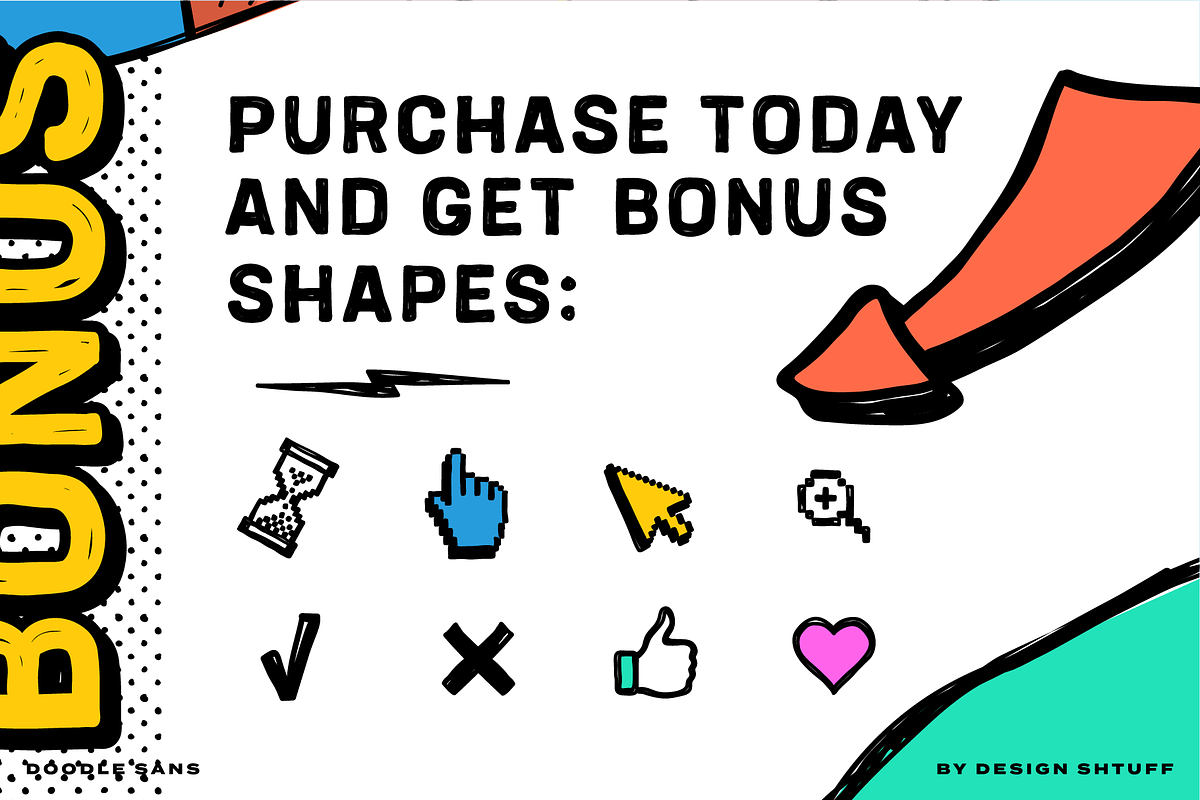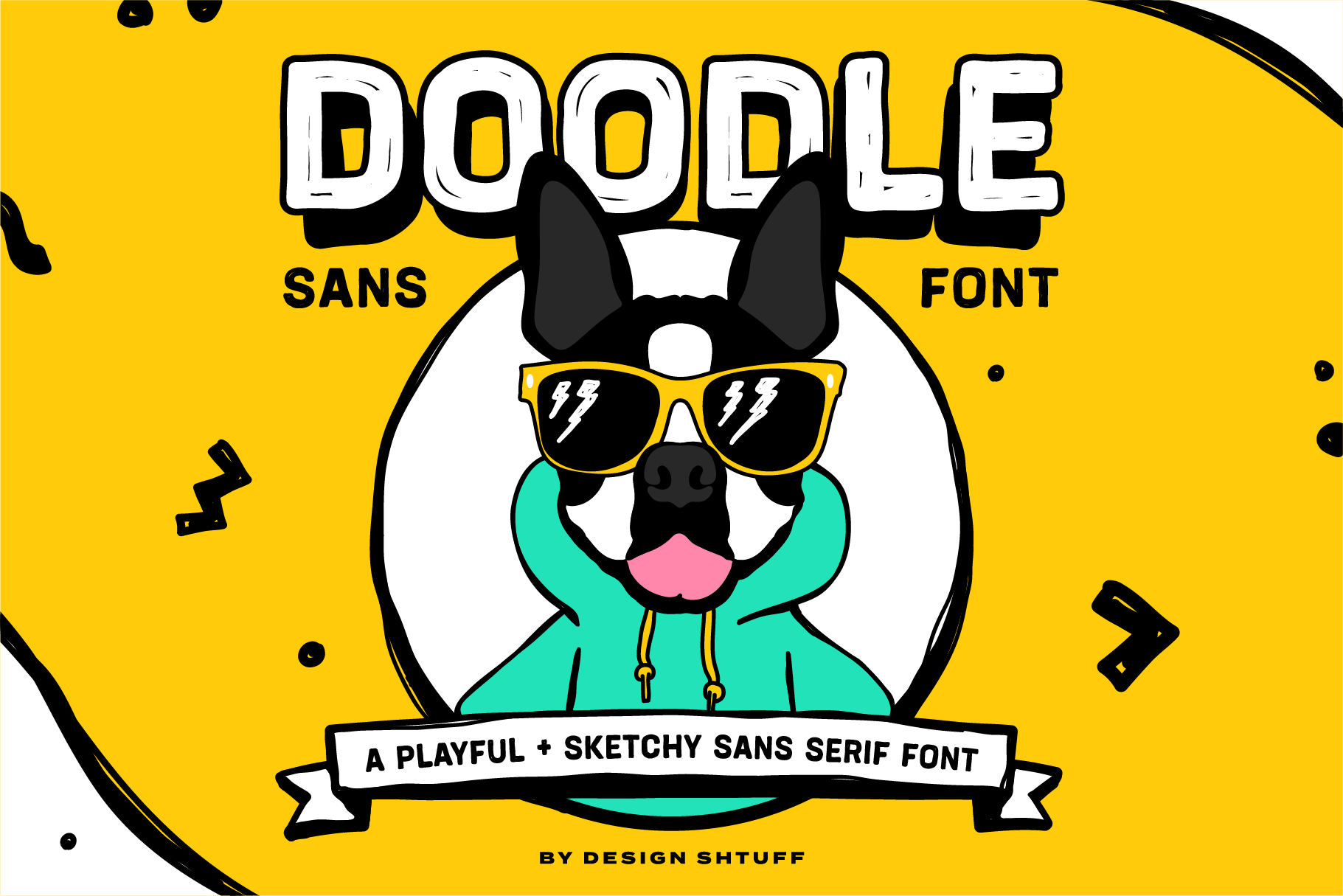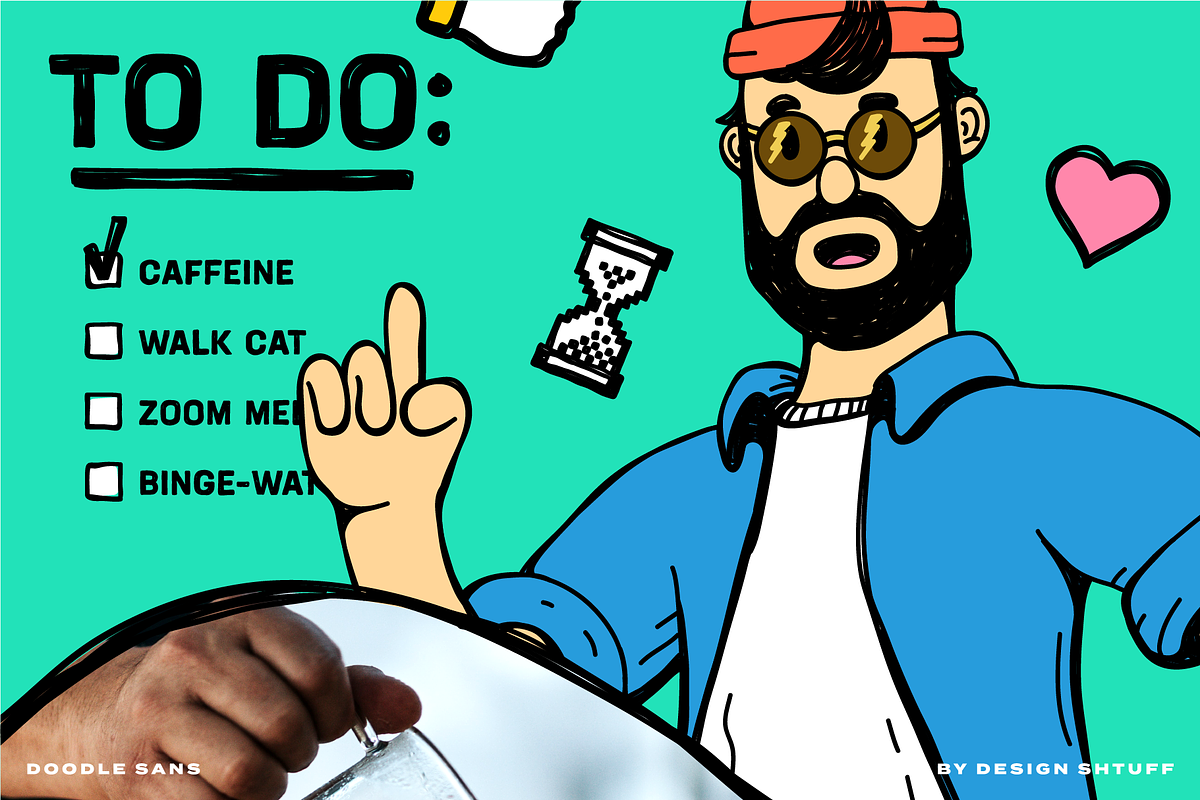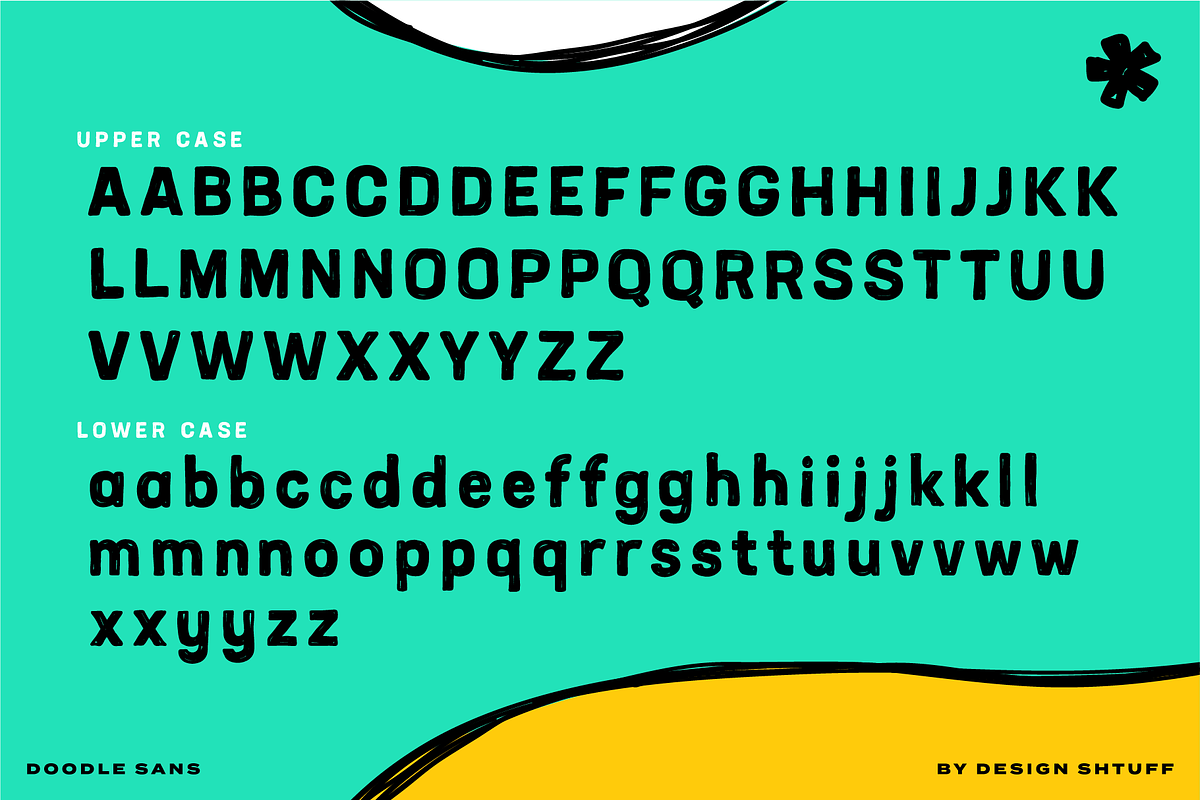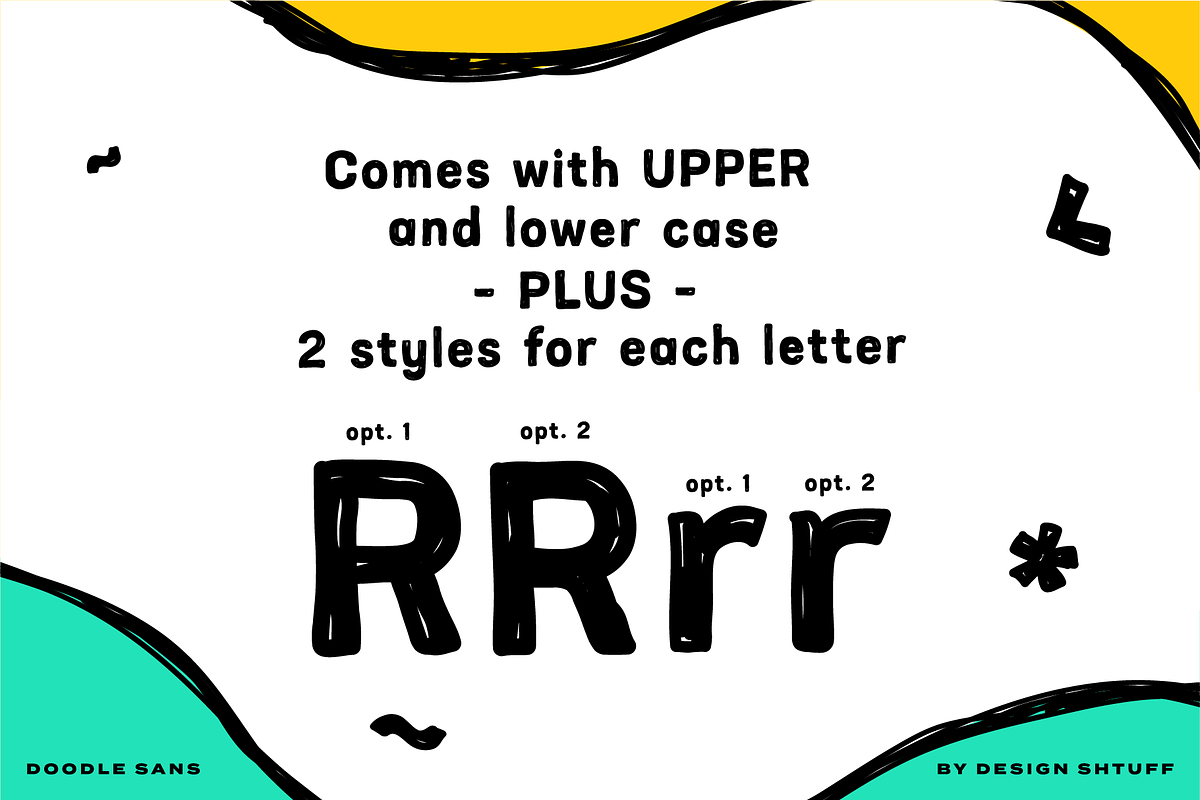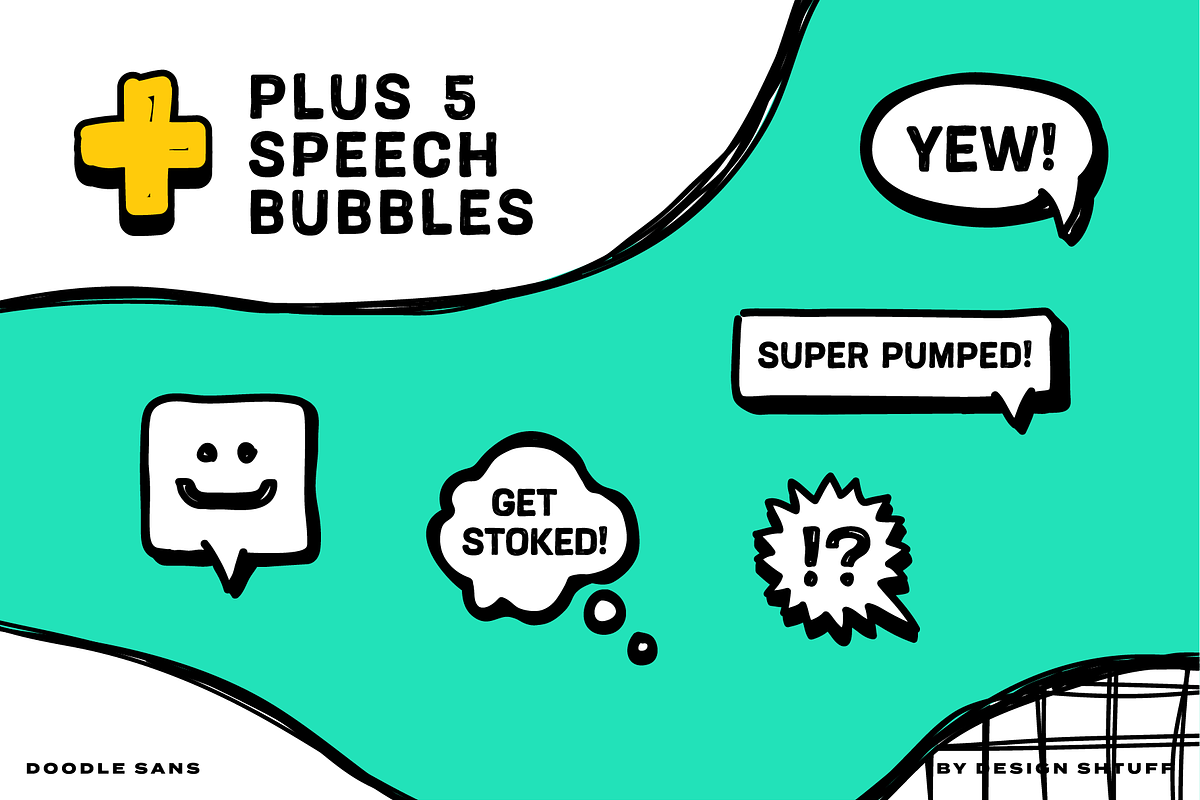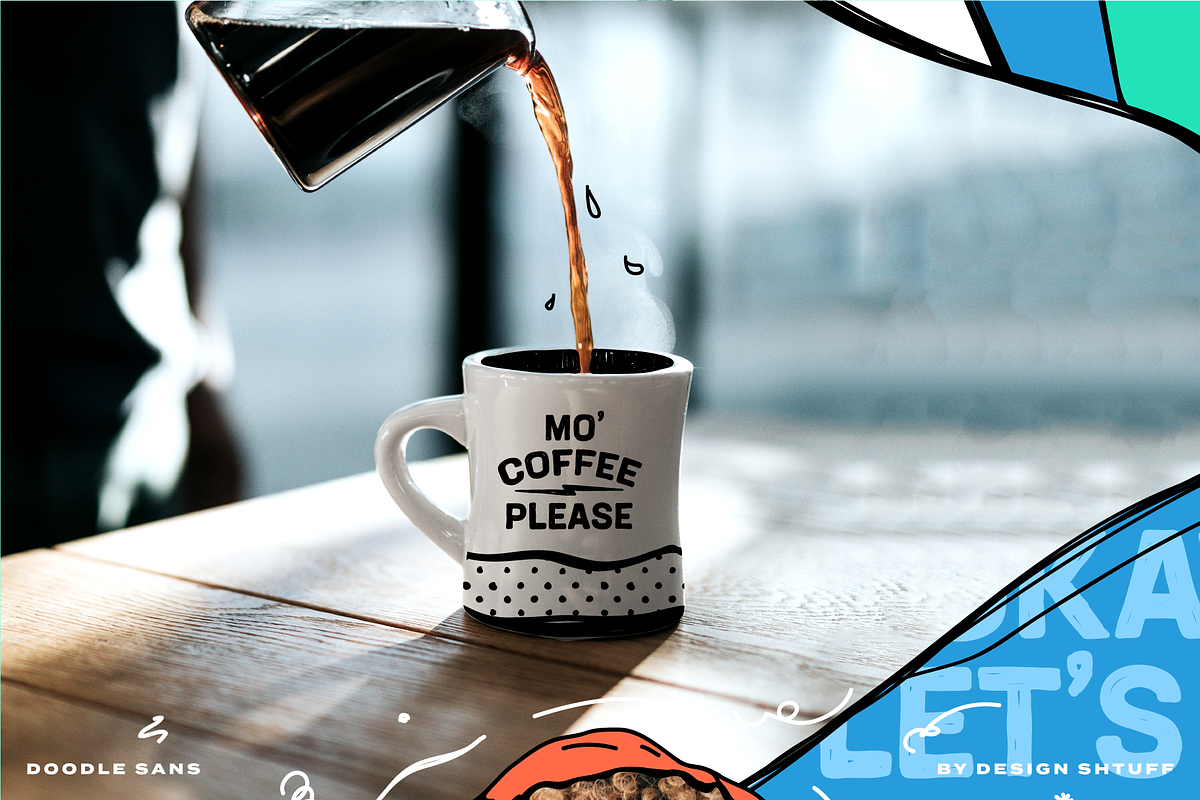
DOODLE SANS FONT + EXTRA GRAPHICS
A PLAYFUL, SKETCHY SANS SERIF DISPLAY FONT MADE TO COMPLIMENT ALL OF YOUR DIGITAL DOODLES.
The font has upper and lower case, and 2 digitally hand-drawn versions for each letter. Plus numbers 1–0 and many standard glyphs.